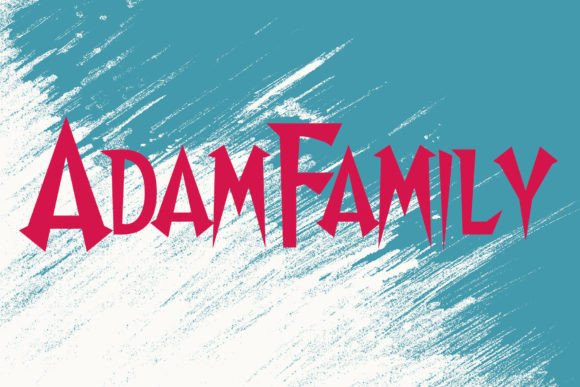
Adam Family: A Spooky Font for Creative Expression
The world of typography is filled with fonts that serve a purpose, but only a few manage to capture a mood or theme as vividly as Adam Family. This unique display font stands out with its scary and spooky vibe, making it an ideal choice for Halloween-themed designs, horror-inspired branding, or any project that needs a touch of eerie elegance. Whether you're a designer, marketer, blogger, or small business owner, Adam Family offers a bold visual statement that can elevate your creative work in unexpected ways.
What Makes Adam Family Unique?
At first glance, Adam Family appears to be more than just another decorative fontâitâs a character in itself. Its jagged edges, exaggerated letterforms, and ghostly aesthetic immediately convey a sense of mystery and fear. Unlike standard sans-serif or serif fonts used for readability, Adam Family is designed for impact and atmosphere. It thrives in large sizes and works best when the goal is to evoke emotion rather than clarity.
This font isnât limited to Halloween cards or horror posters alone. Its versatility allows it to adapt across various media, from website headers to packaging labels, depending on how you want to use it. The key is understanding when to deploy it effectively so it doesnât overwhelm the message but instead enhances it with a layer of intrigue.
Why Designers Love Adam Family
- High Visual Impact: Adam Family commands attention, which makes it perfect for headlines, banners, and titles where you need to create a strong first impression.
- Emotional Resonance: It naturally fits themes like horror, fantasy, or the supernatural, helping designers connect with audiences through shared imagery and symbolism.
- Customizable Style: With variations in weight and tone, this font can be adapted to suit different tones within the same genreâwhether youâre aiming for playful spookiness or deep, dark dread.
Applications Across Industries
Adam Family isn't just for Halloween. While it's commonly associated with spooky events, it has broader applications that make it valuable for multiple industries. Letâs explore how professionals in different fields can use this font creatively.
Marketing and Branding
Marketers looking to create themed campaigns around holidays like Halloween or All Saintsâ Day will find Adam Family particularly useful. For example, a haunted house attraction could use it for their promotional materials to instantly communicate the thrill and terror of the experience. Similarly, brands launching seasonal productsâlike pumpkin spice lattes or Halloween candyâcan leverage this font to add a dramatic flair to their packaging or digital ads.
When using Adam Family in marketing materials, pair it with high-contrast colors (think black and orange) and ensure it's legible enough at a glance. Balance the spooky feel with clear messaging so your audience understands what you're promoting without confusion.
Web and Graphic Design
For web designers, Adam Family can be a powerful tool in creating immersive user experiences. It might appear on a landing page for a horror movie streaming site, or in the header of a blog post about paranormal investigations. However, since it's a display font, it should typically be reserved for headings rather than body text.
Graphic designers working on event invitations, book covers, or merchandise for horror conventions can also benefit from using Adam Family. Try combining it with other complementary fonts for contrastâfor instance, a clean sans-serif for supporting textâto maintain readability while still embracing the spooky aesthetic.
Education and Publishing
Teachers and educators might use Adam Family to design engaging classroom decorations for October, especially around Halloween. Book publishers, meanwhile, can consider it for the title pages of horror or fantasy novels, adding a visual element that matches the contentâs tone.
If you're designing a children's storybook with a whimsical ghost or monster theme, Adam Family can help create a fun yet spooky atmosphere without being too intimidating. Use it sparingly to highlight key words or phrases, such as âBOO!â or âThe Haunted House,â to build excitement and curiosity.
Entrepreneurs and Small Business Owners
Small businesses can incorporate Adam Family into their branding during seasonal promotions. Think of haunted Halloween pop-ups, costume shops, or even niche cafes offering spooky-themed menus. The font can be used on signage, social media posts, or email newsletters to create a cohesive and memorable brand identity.
Freelancers and entrepreneurs who specialize in themed content creationâsuch as party planners or event decoratorsâcan include this font in their portfolio to showcase their ability to craft immersive visual experiences. Just remember to keep the rest of the design elements aligned with the fontâs tone to maintain consistency.
Practical Tips for Using Adam Family Effectively
So next time you're working on a project that needs a bit of spook or drama, consider reaching for Adam Family. Itâs more than just a font; itâs a gateway to creativity that can transform your visuals into something unforgettable.